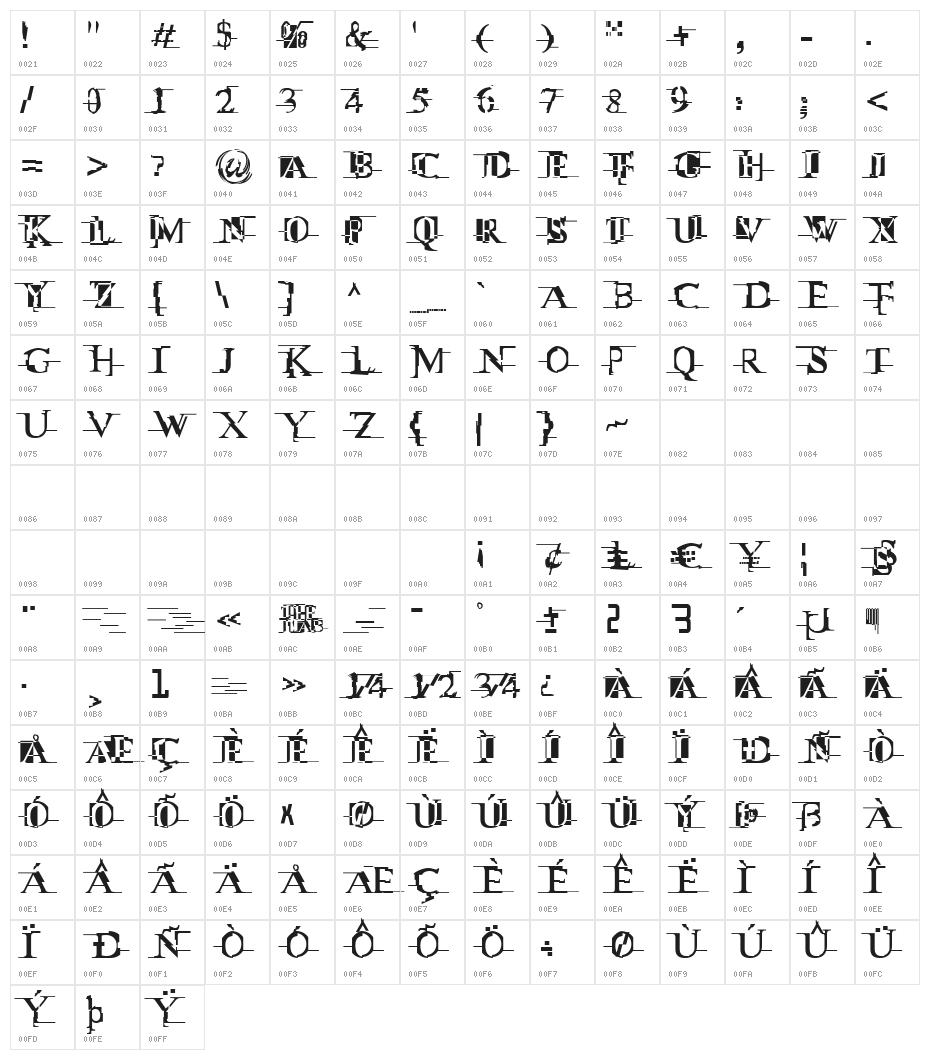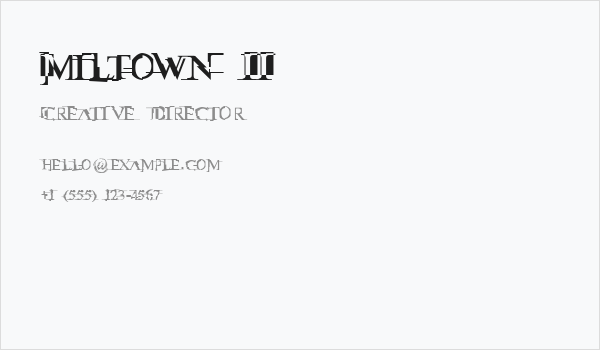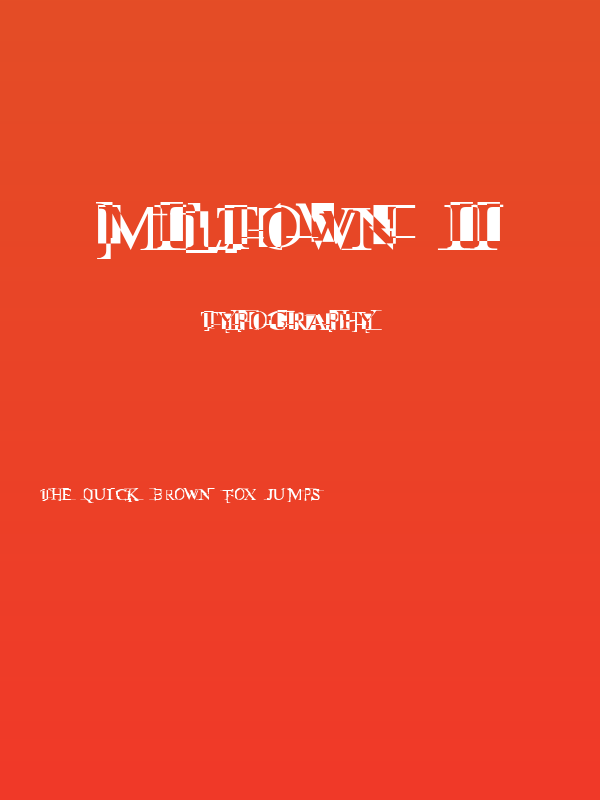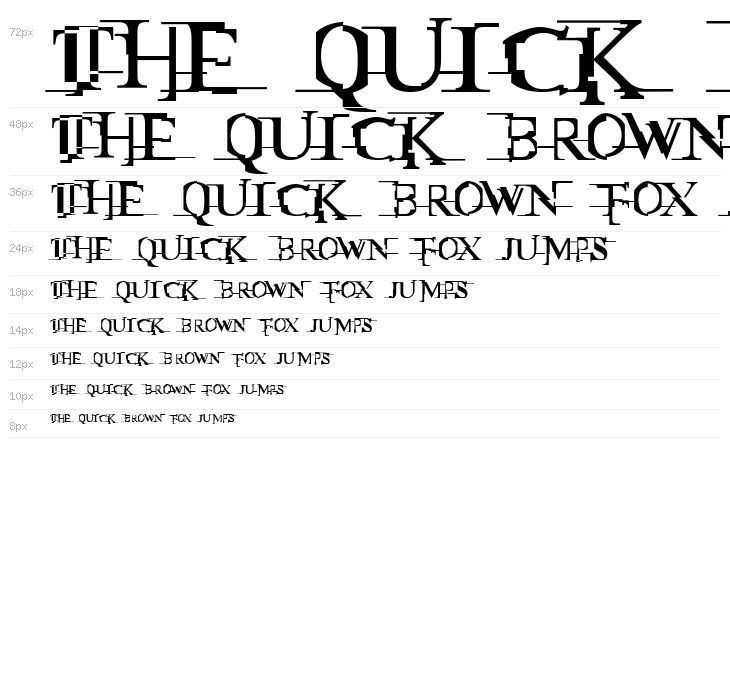
Miltown II Font
Miltown II Description
This font features a highly decorative and distressed style, characterized by its fragmented and glitch-like appearance. The letters are bold and have a unique, broken structure that gives them a dynamic and chaotic look. The uppercase and lowercase letters maintain a consistent design, with sharp edges and irregular cuts that create a sense of movement. Numbers and special characters follow the same aesthetic, adding to the overall cohesive yet unconventional style. This font is perfect for projects that require a bold statement or a modern, edgy feel.
| Proposed Projects | Ideal for album covers, posters, digital art, and branding that seeks a modern, edgy aesthetic. |